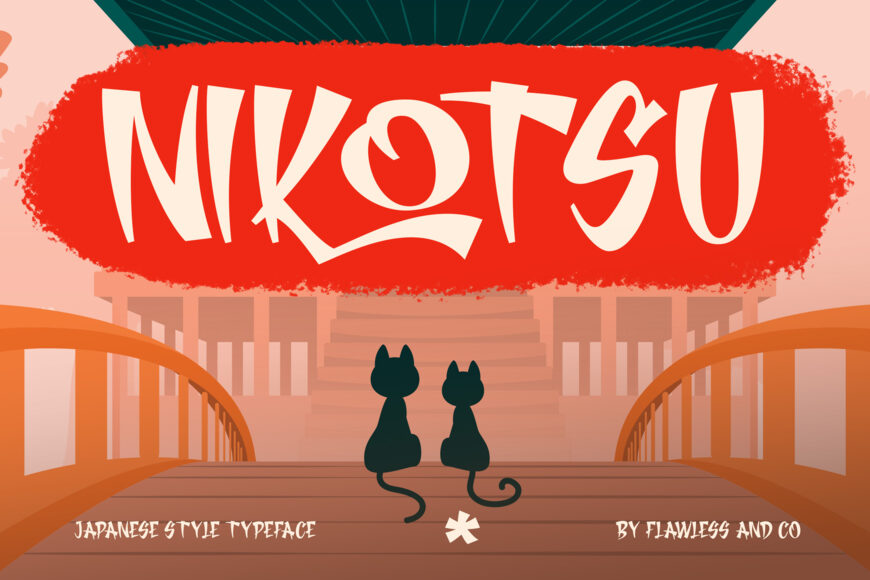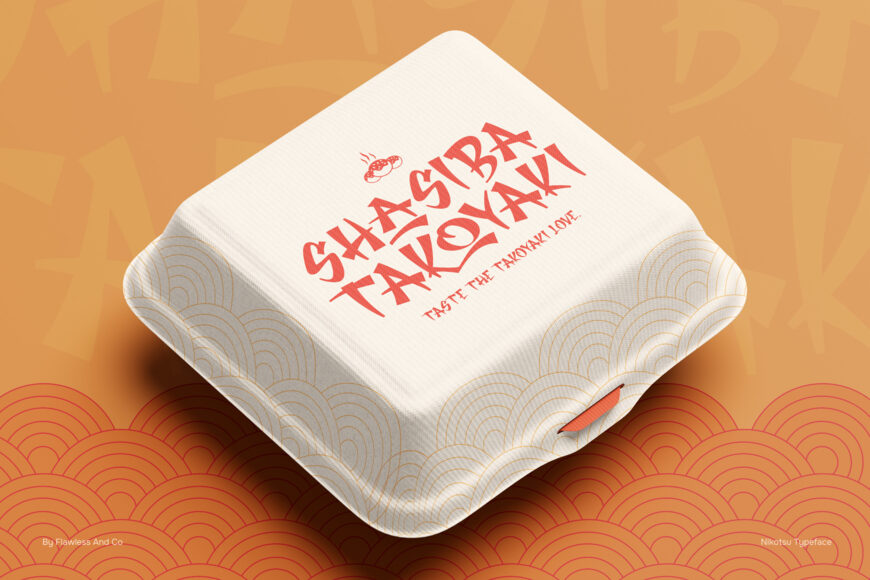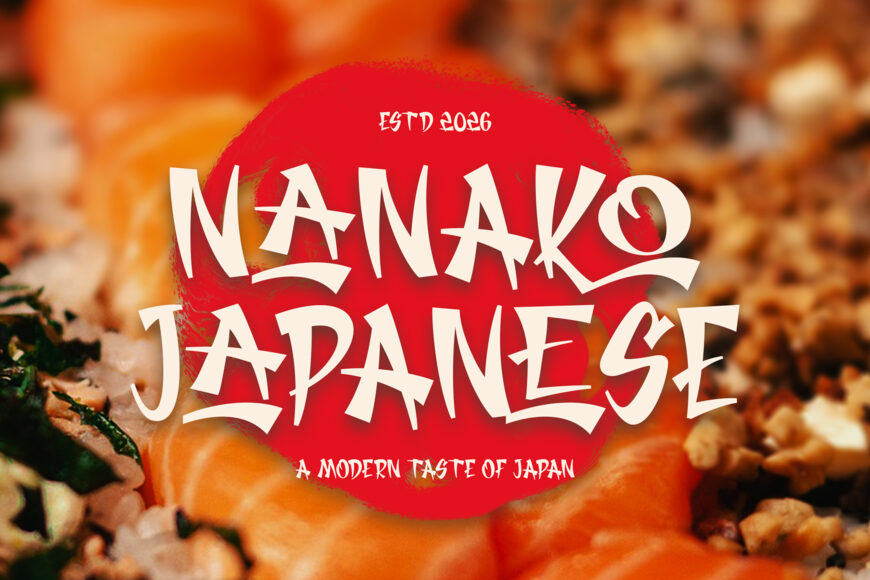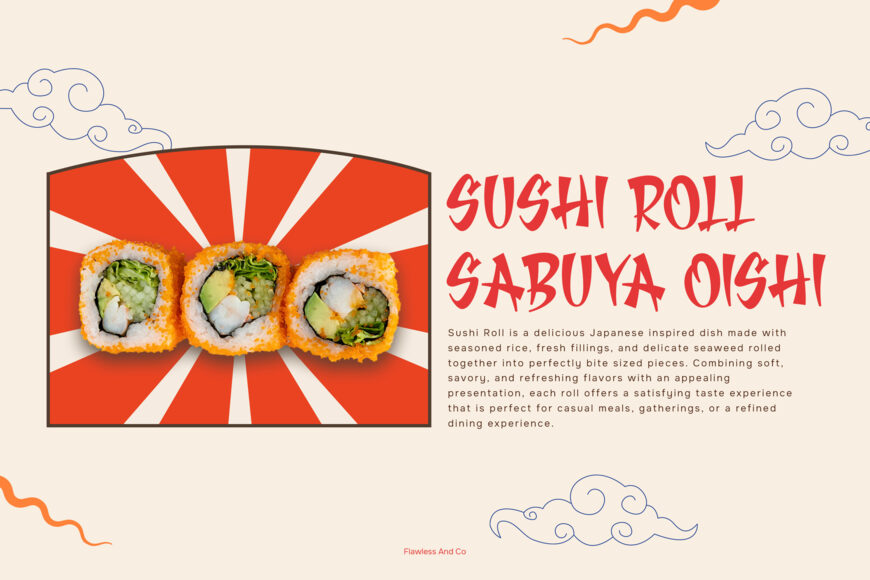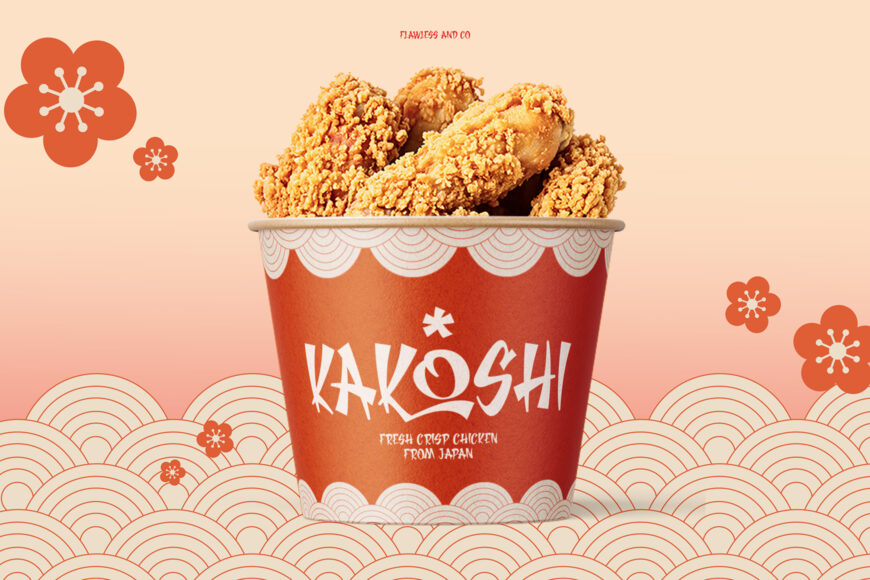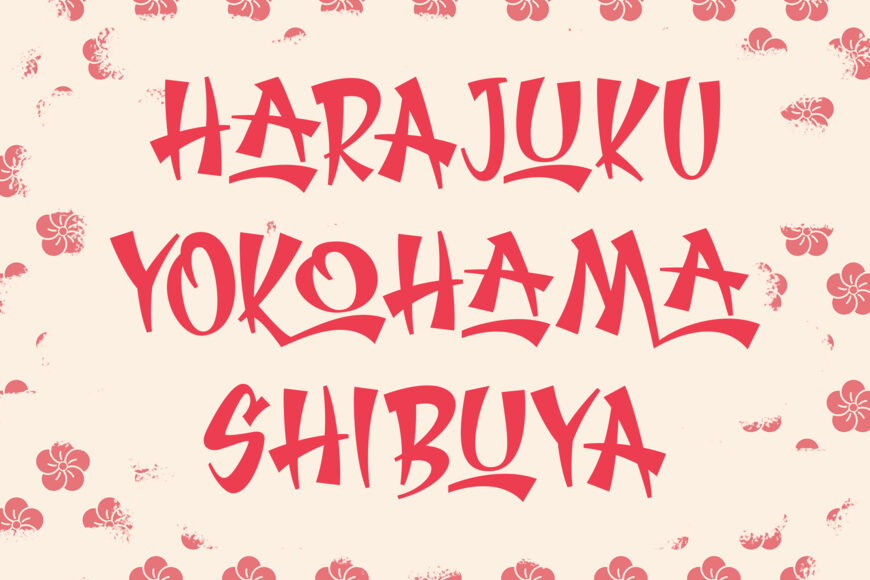
Nikotsu Font
Nikotsu is a Japanese-inspired display font defined by expressive, irregular letterforms and a hand-drawn feel. Bold strokes, playful curves, varied details, and unconventional proportions give it an energetic, organic personality. Designed for prominent display use, Nikotsu turns lettering into a strong graphic feature.
It suits projects influenced by Japanese culture, street art, illustration, entertainment, and contemporary Asian aesthetics. The typeface pairs effectively with illustrations, vivid colors, traditional-inspired motifs, and modern layouts.